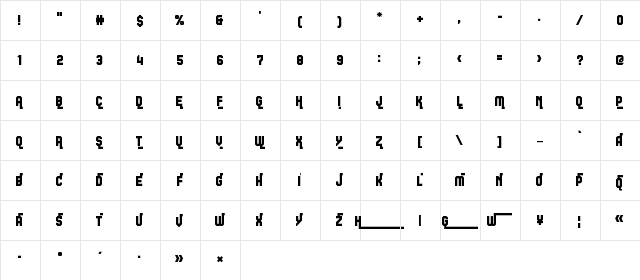
Headline Gothic Titling 1 Regular
Design Context for Headline Gothic Titling 1 Typeface
Headline Gothic Titling 1 has the quiet confidence of well-executed sans-serif typography: versatile, unobtrusive, and dependable at any size.
Font Pairing: Works well alongside a characterful serif or display font that can carry the expressive load while Headline Gothic Titling 1 handles the functional copy.
Pro Tip: Pair Headline Gothic Titling 1 with a display or serif font for headlines — its neutral character makes it an excellent supporting player in complex typographic systems.